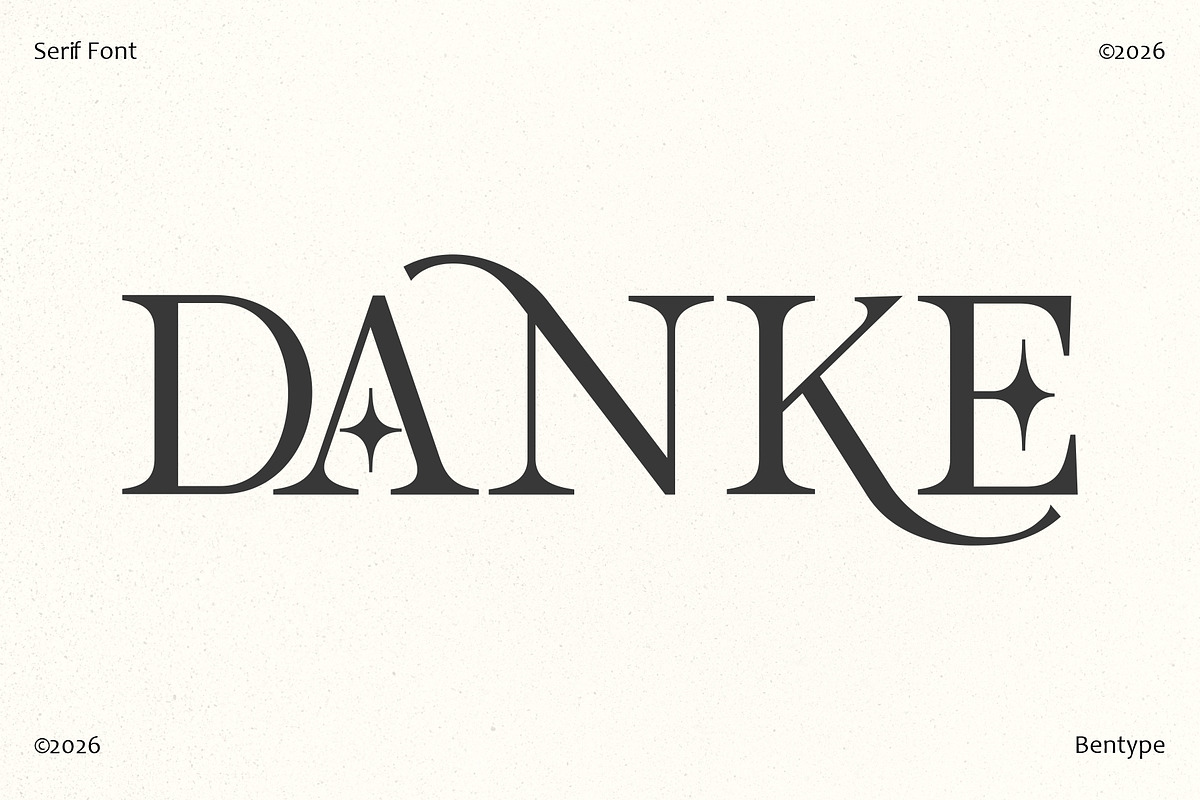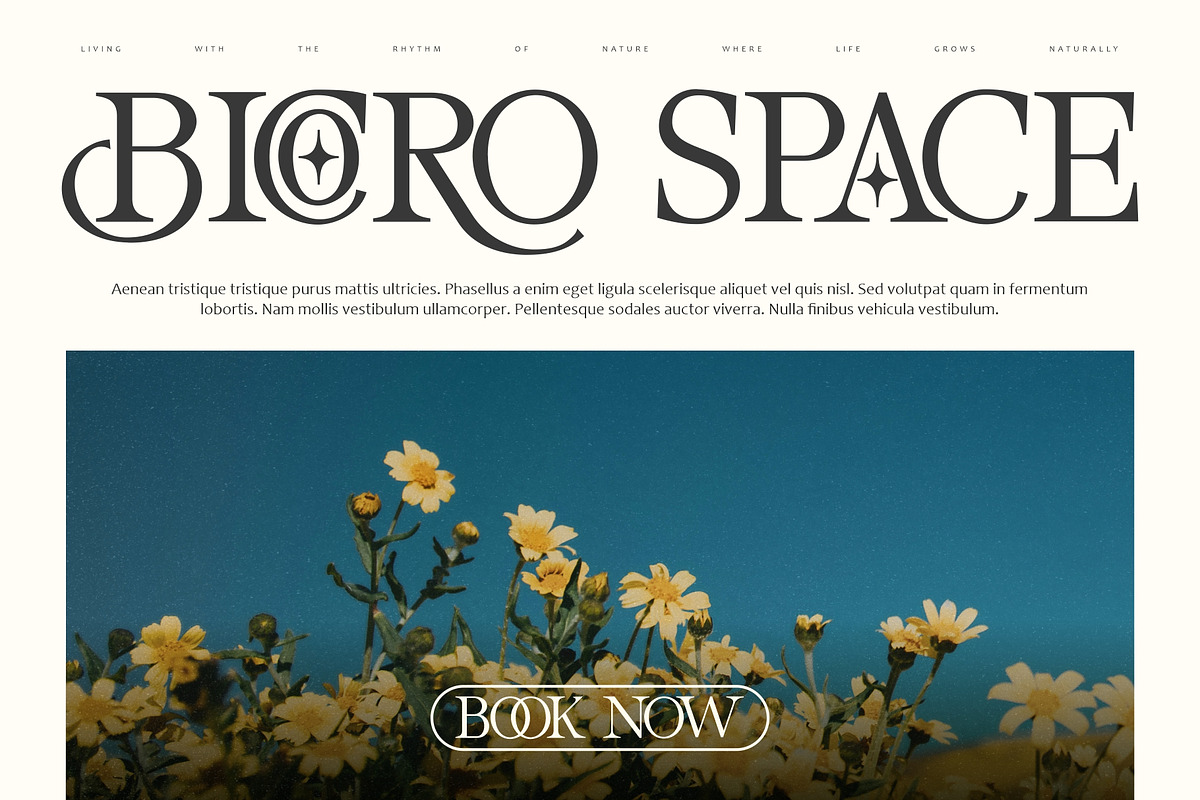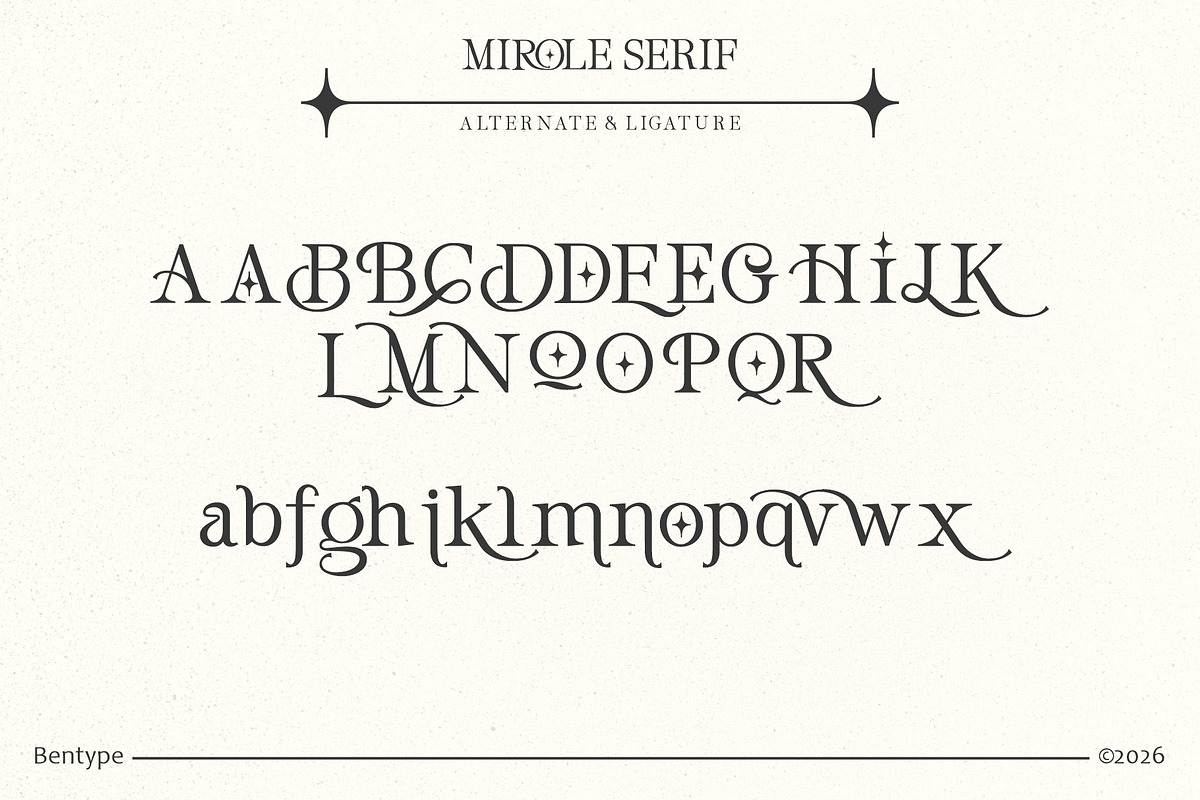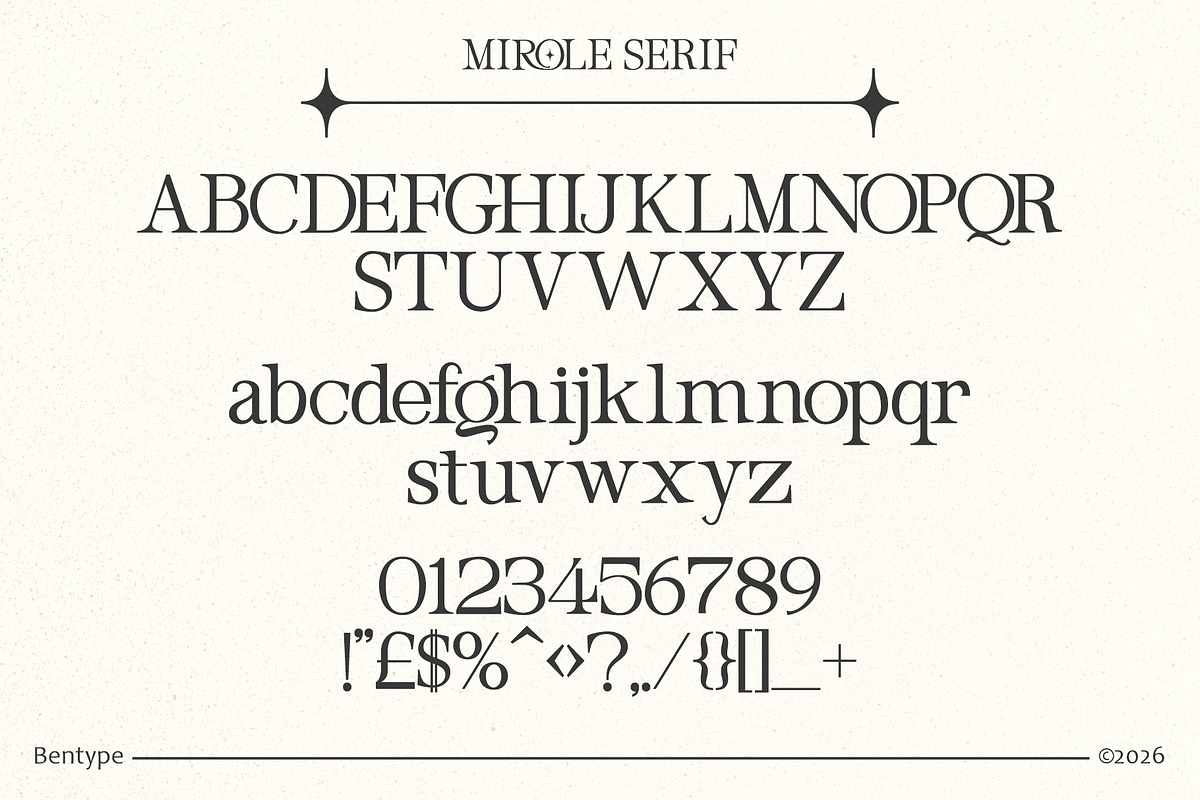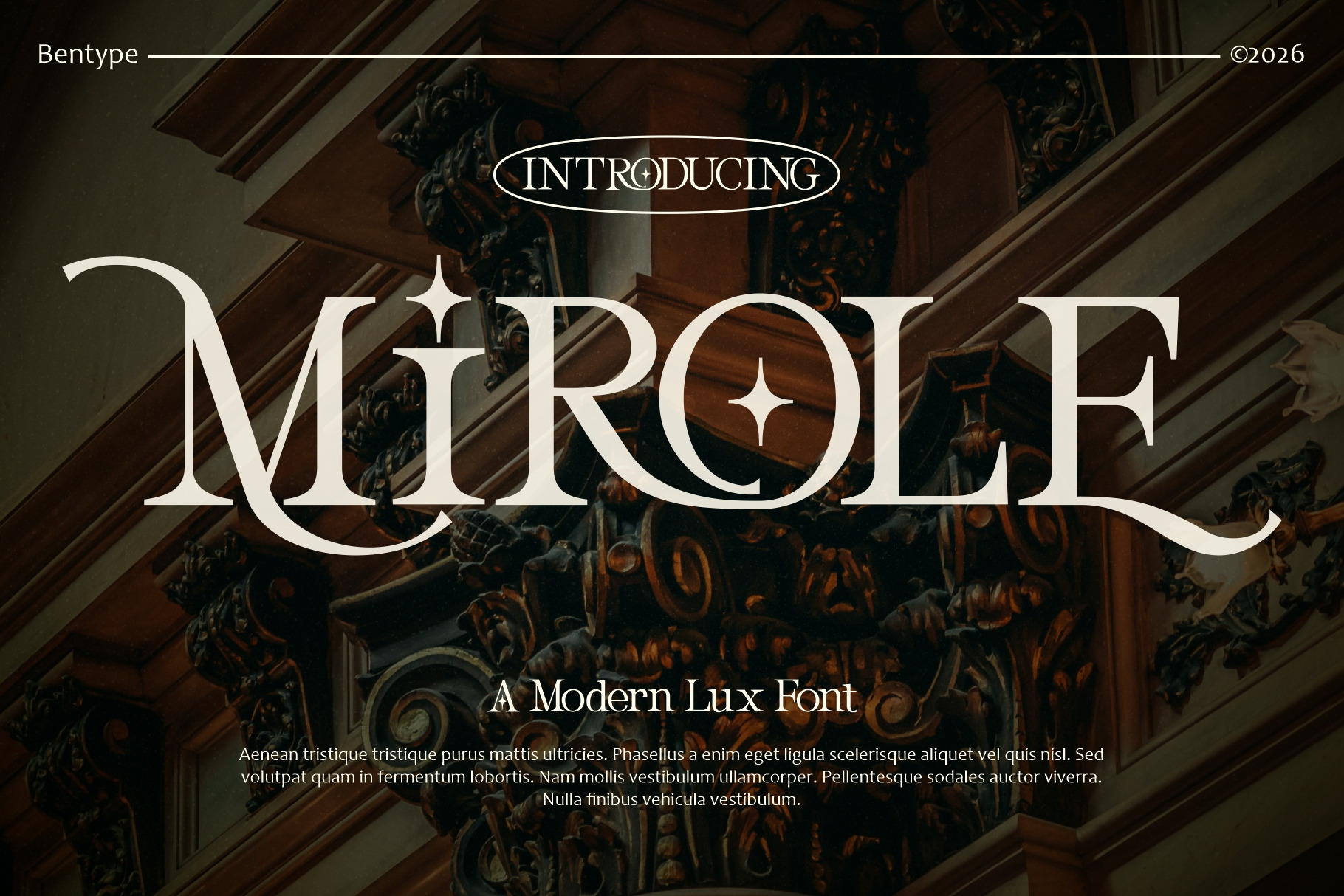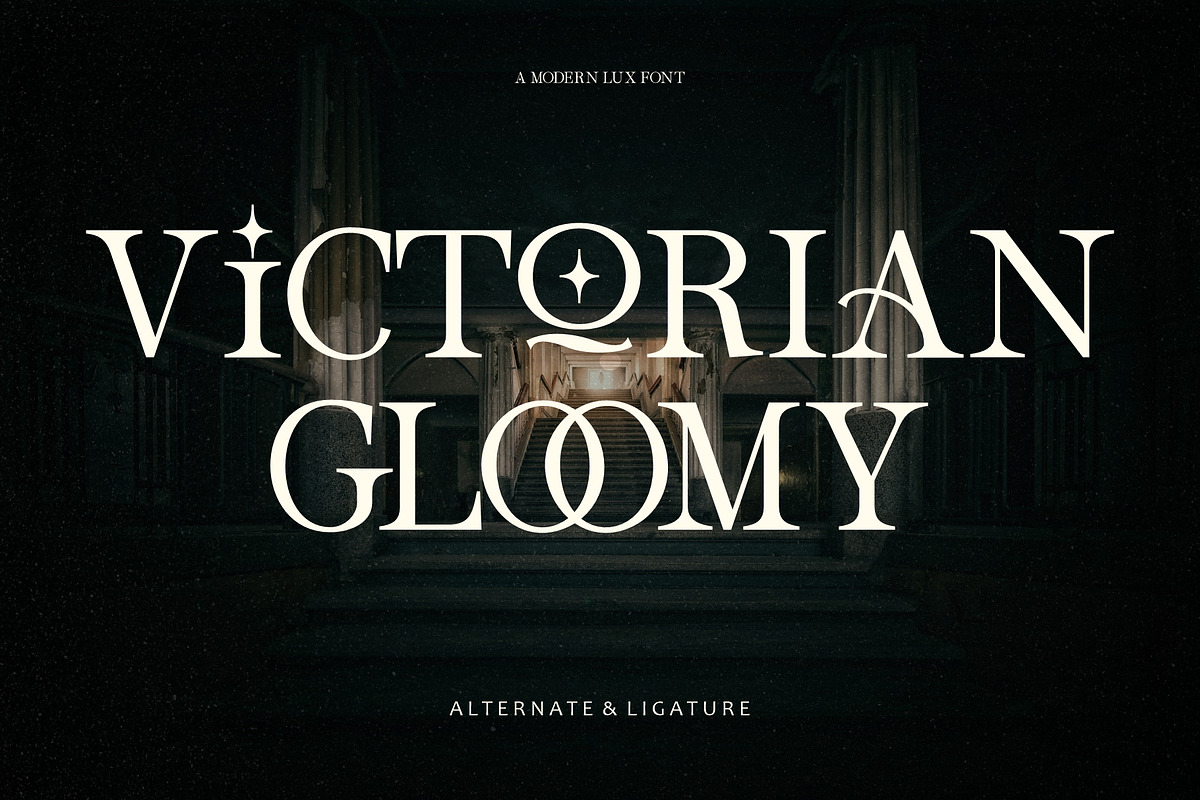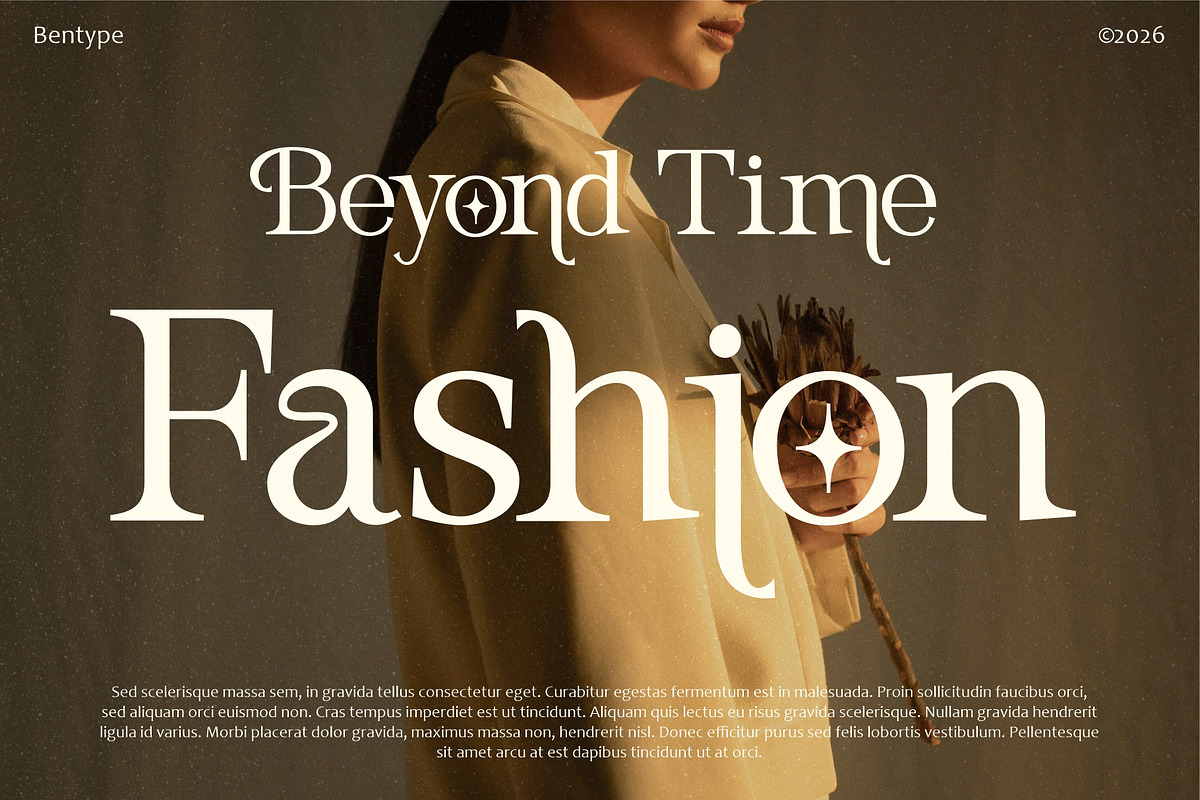
Mirole - Modern Luxury Font
introducing our new Mirole - Modern Luxury Font with Elegant Style. Inspired by the concept of romantic vibes and made it into a unique yet luxury style. This font is also looks fabulous and will fit well in any design
Mirole can be used for a variety of projects such as branding, photography, invitations, wedding designs, product design and other romantic projects.